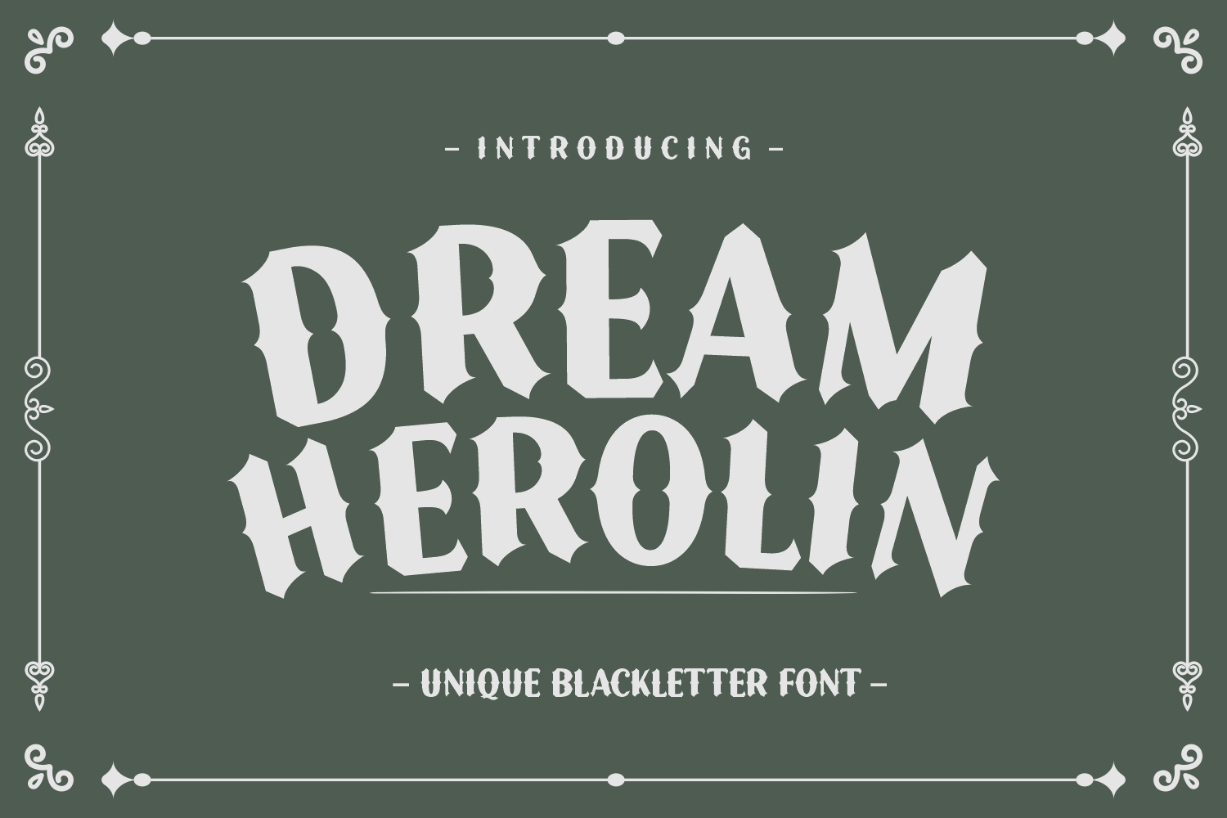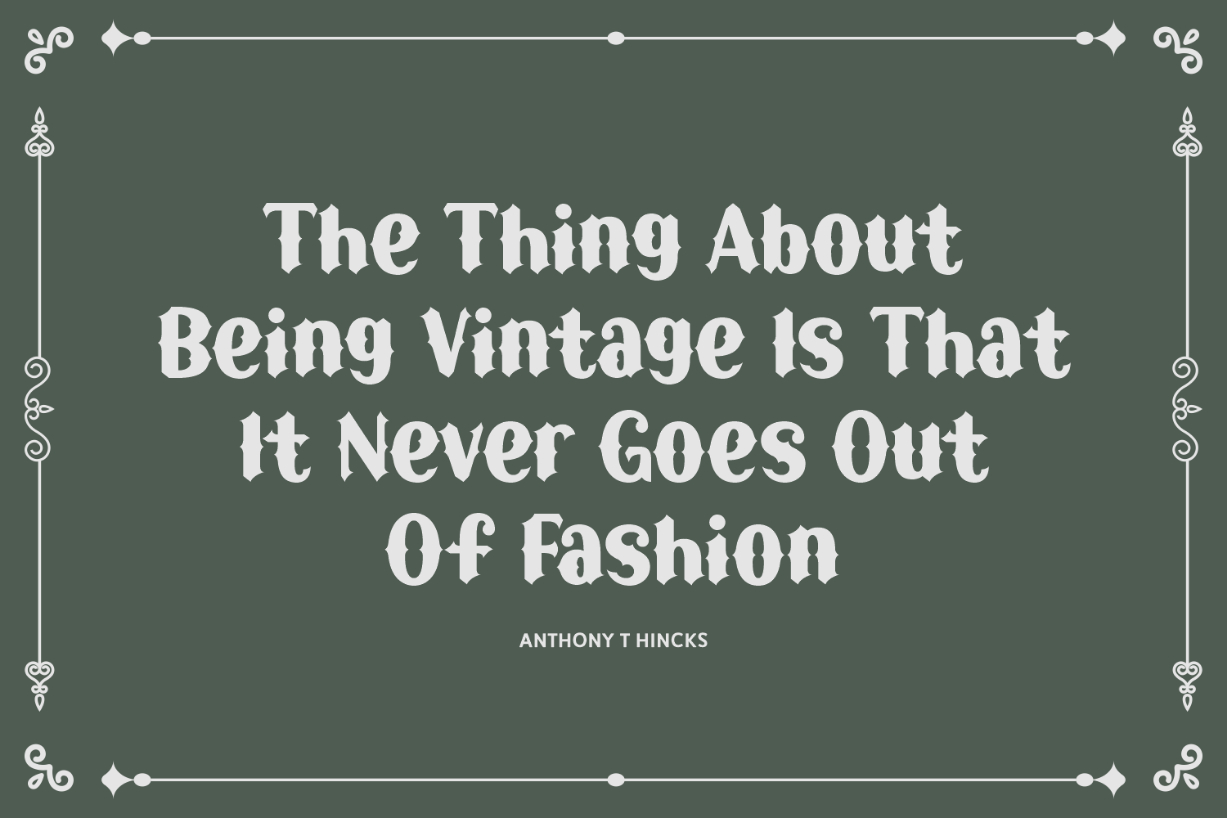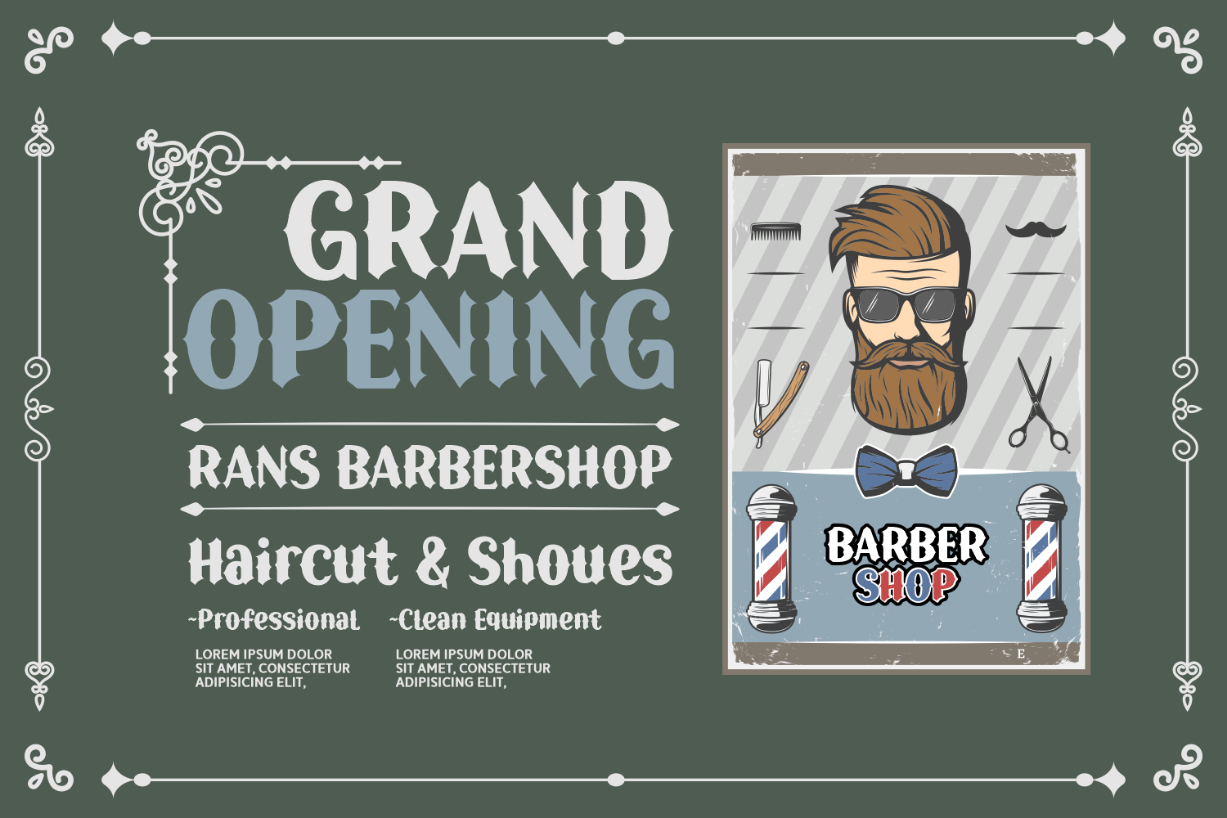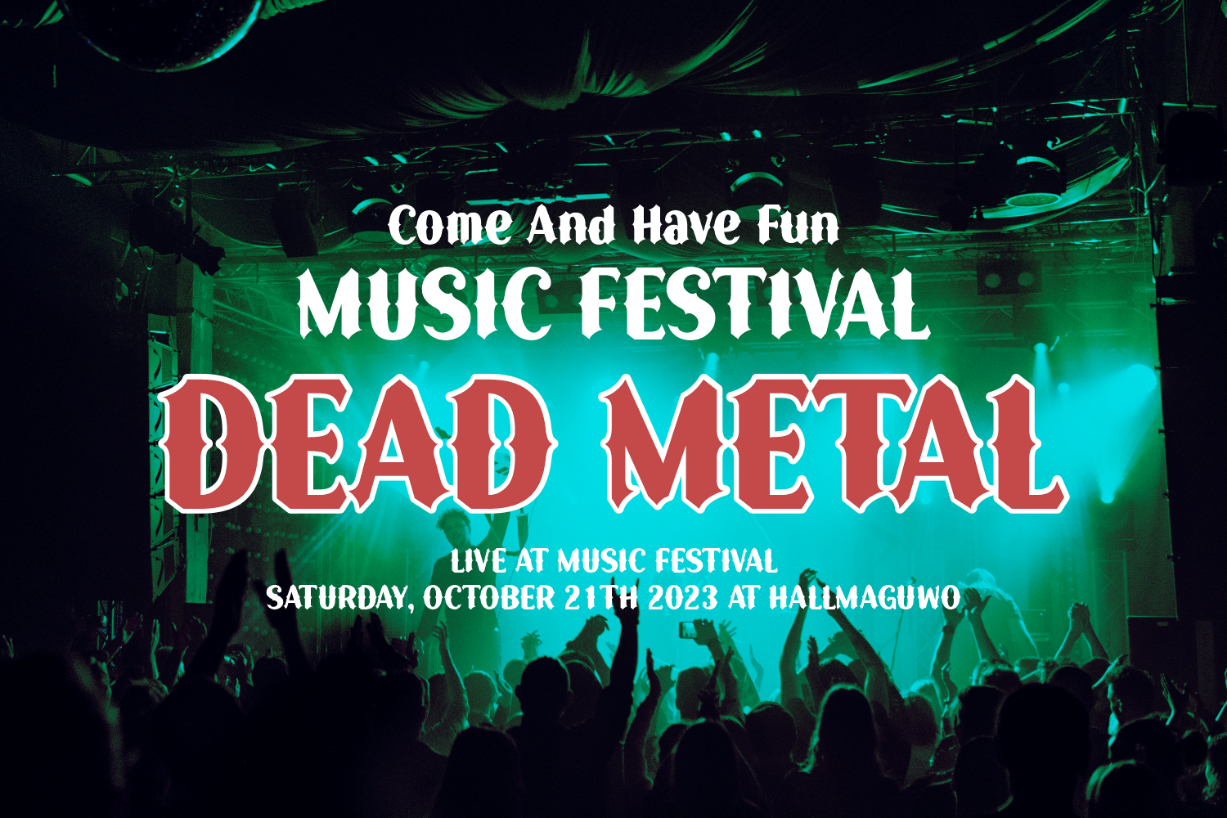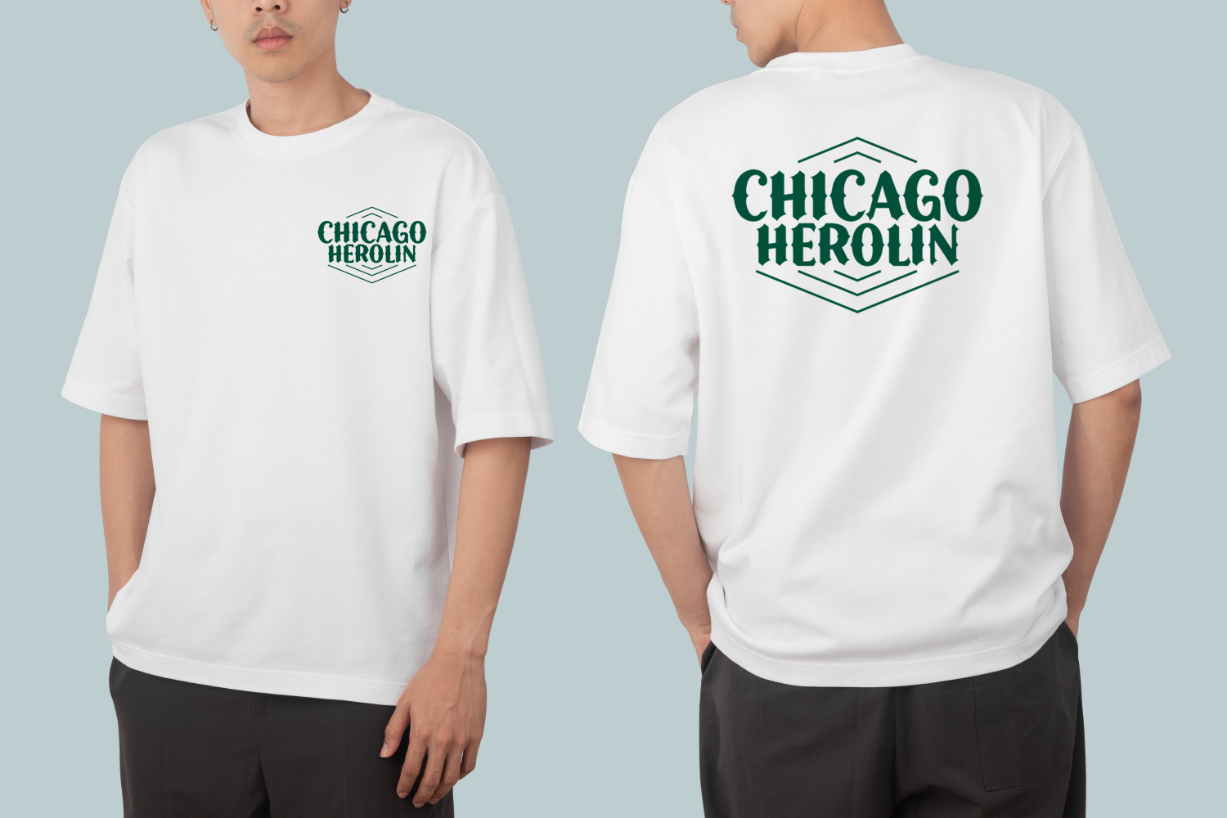
Dream Herolin Font
About Dream Herolin Font
Dream Herolin is a unique and charming blackletter font. Add a striking look to your typography designs with this outstanding typeface that will take any project to the highest level! It looks fabulous on posters, advertisements, logos, t-shirts, headers, titles, and more.